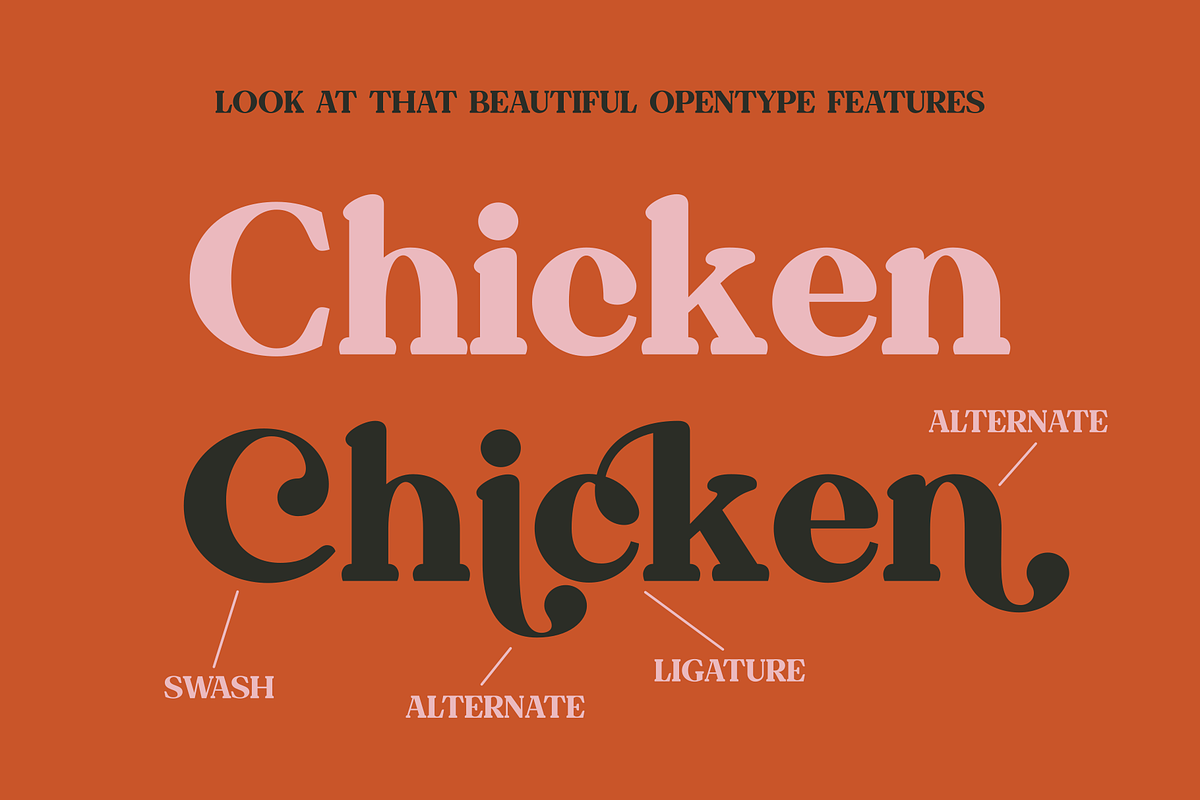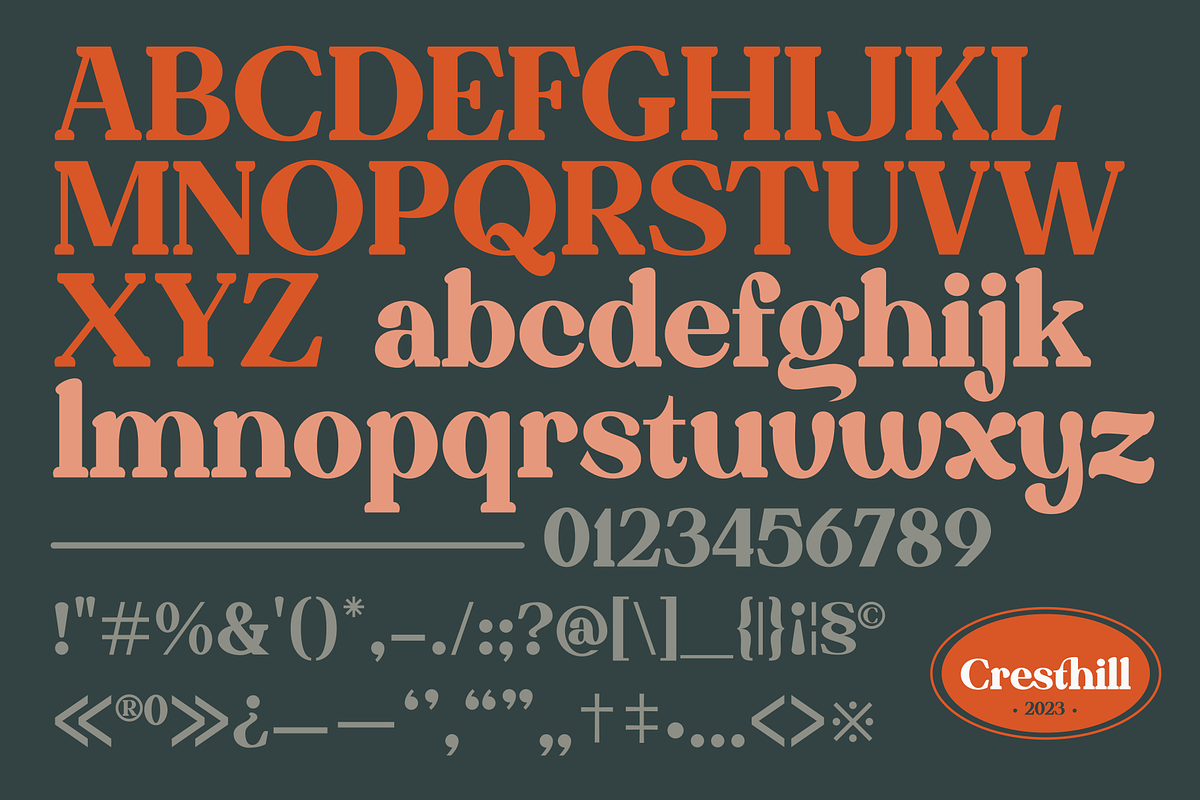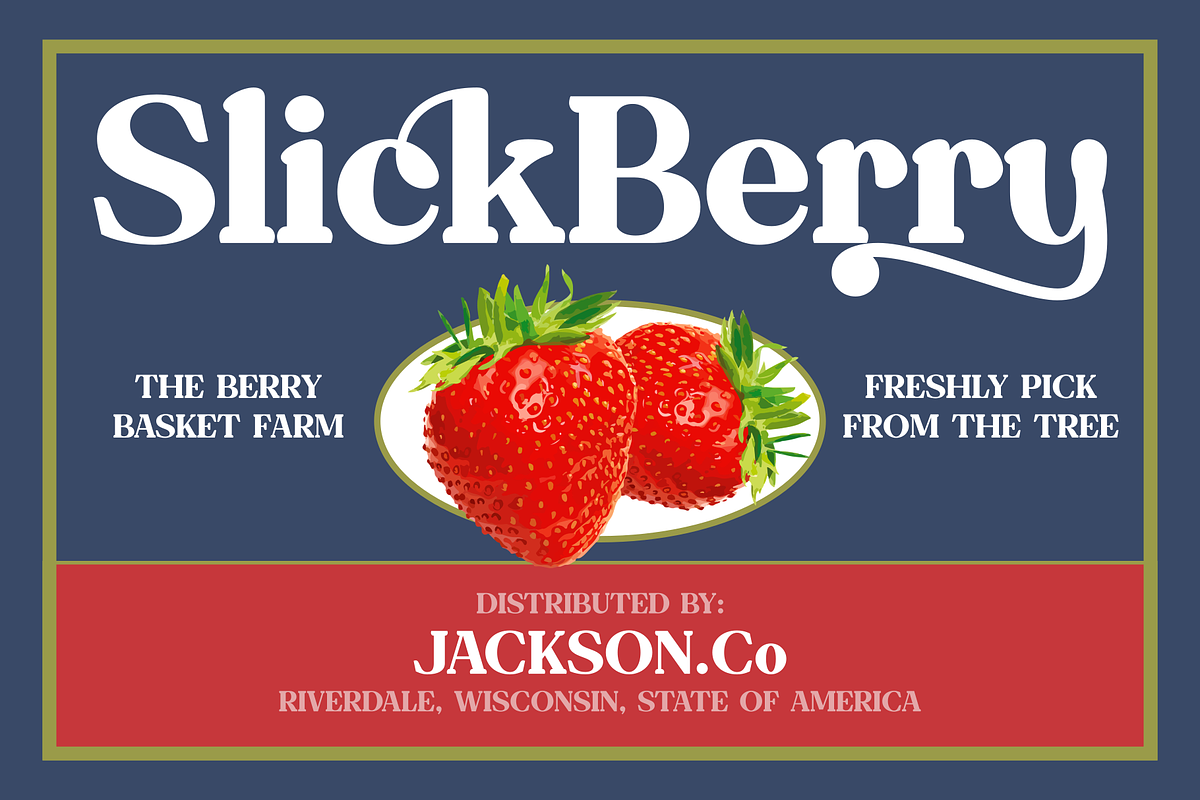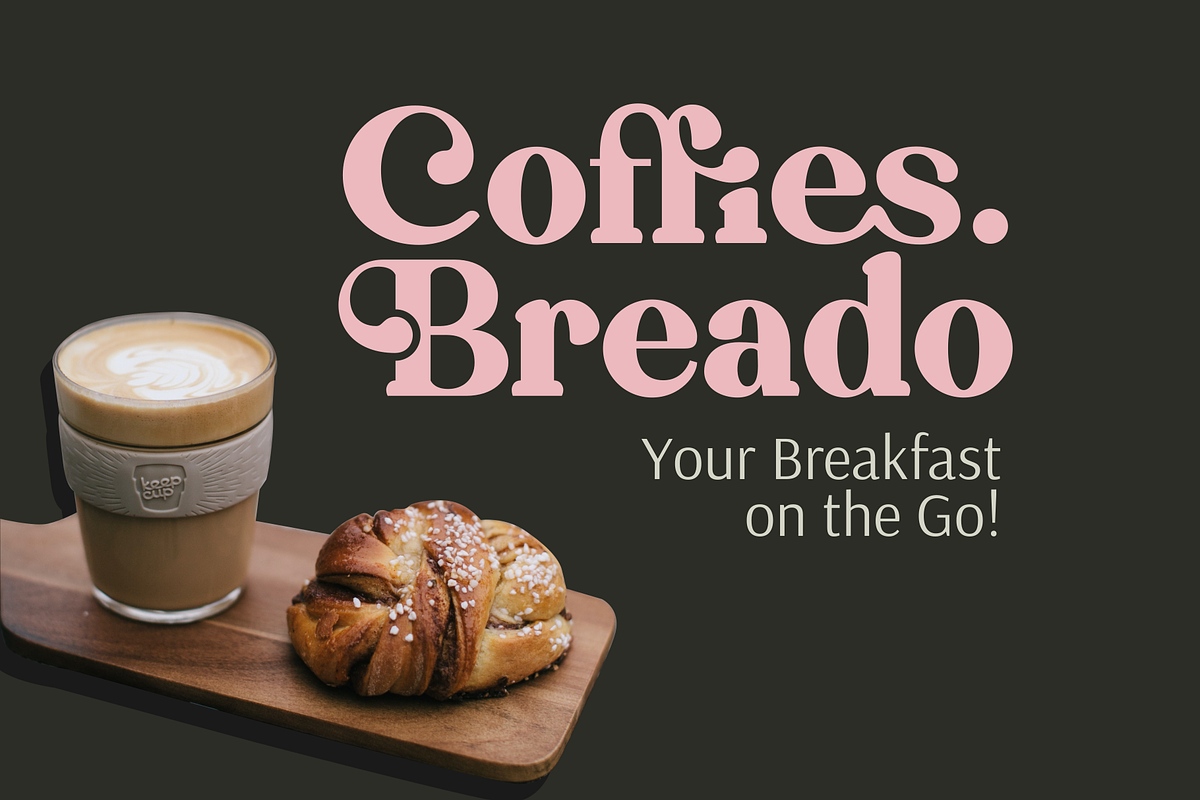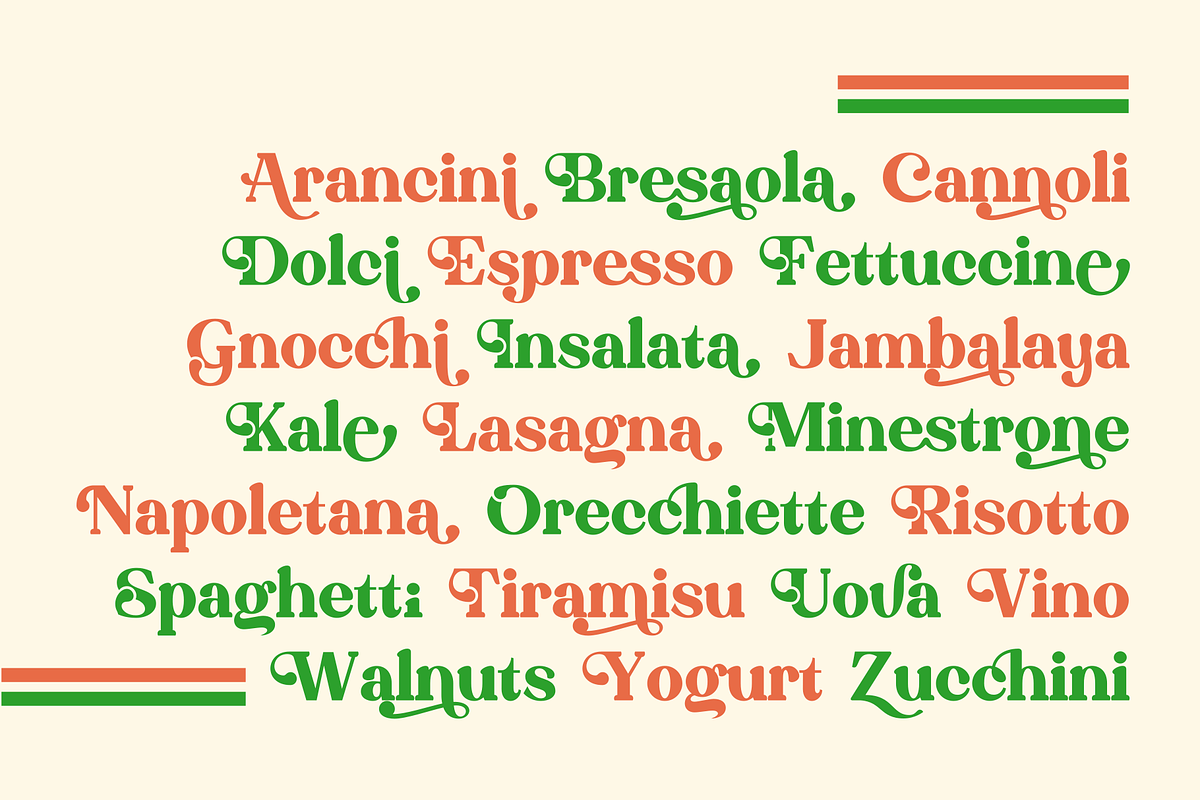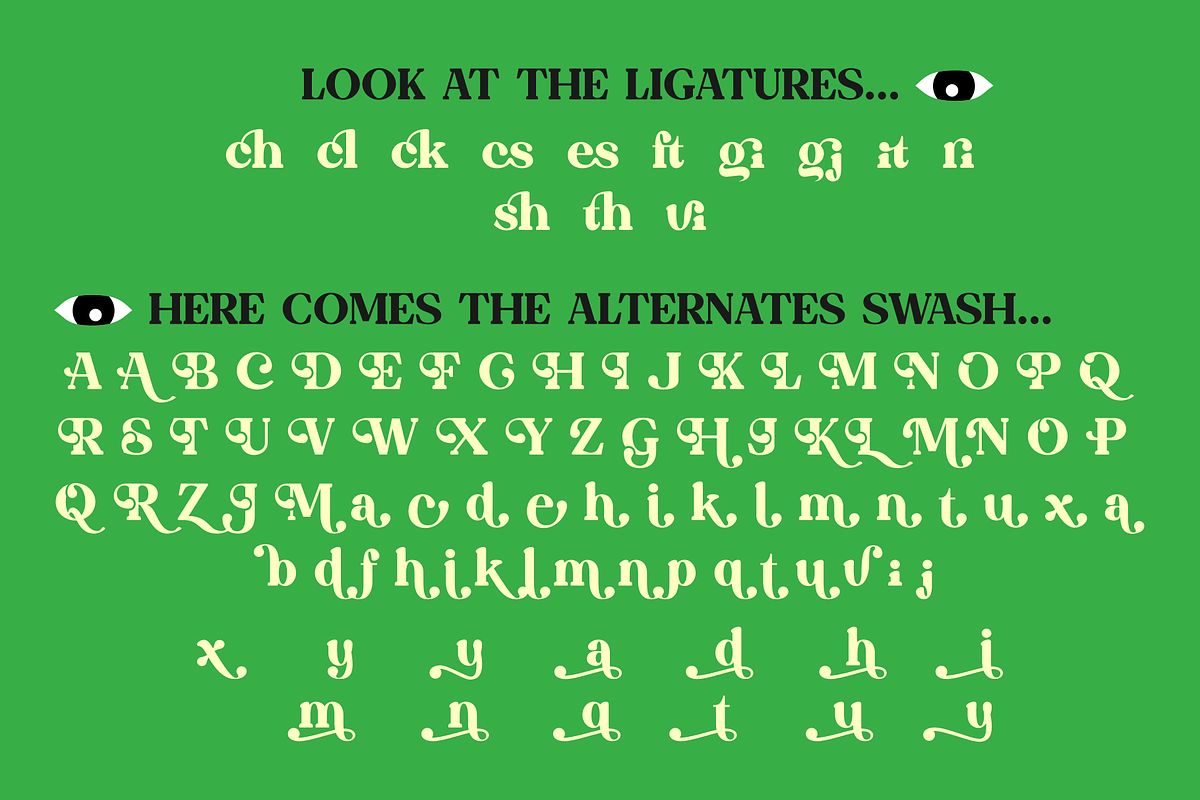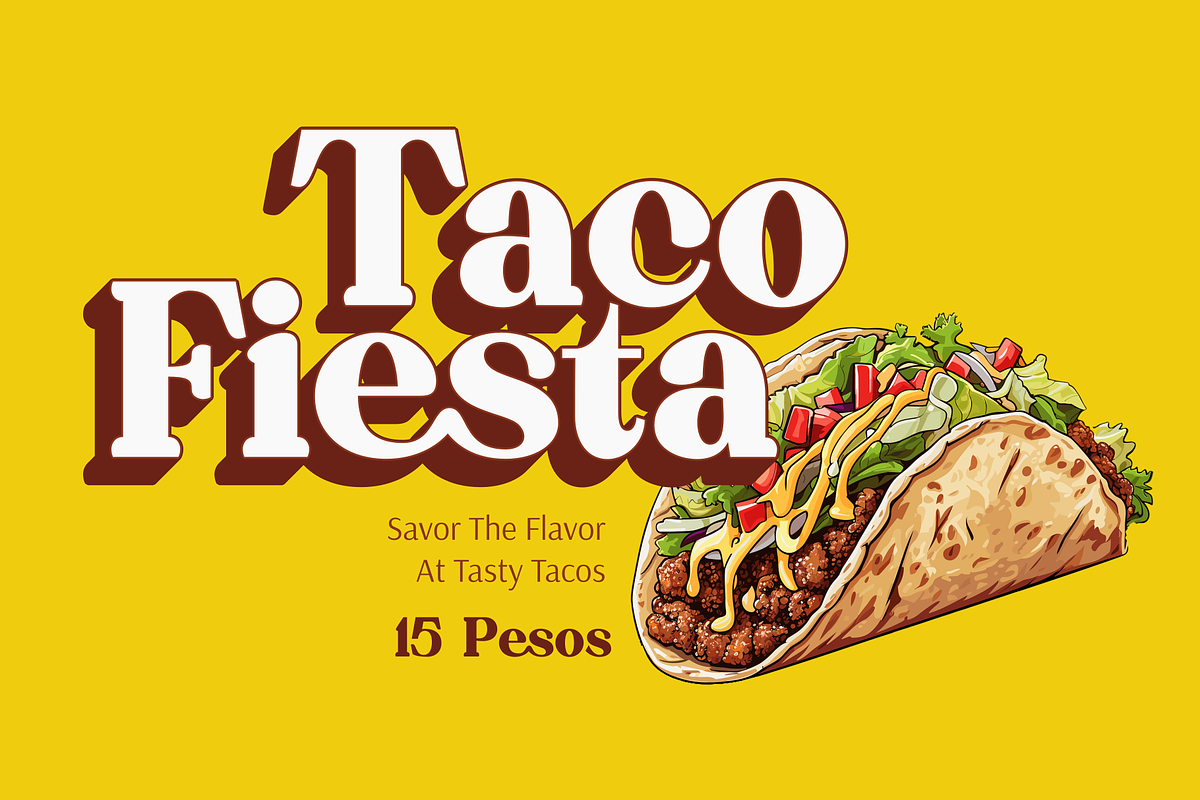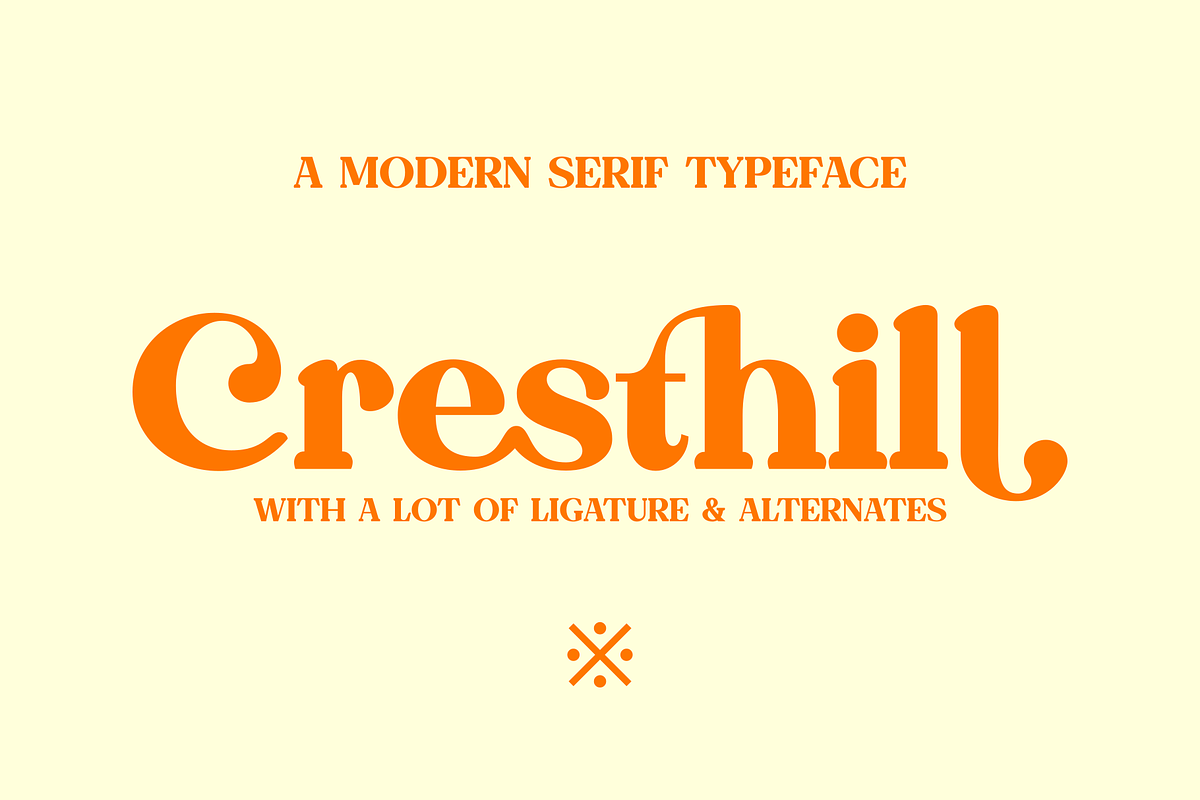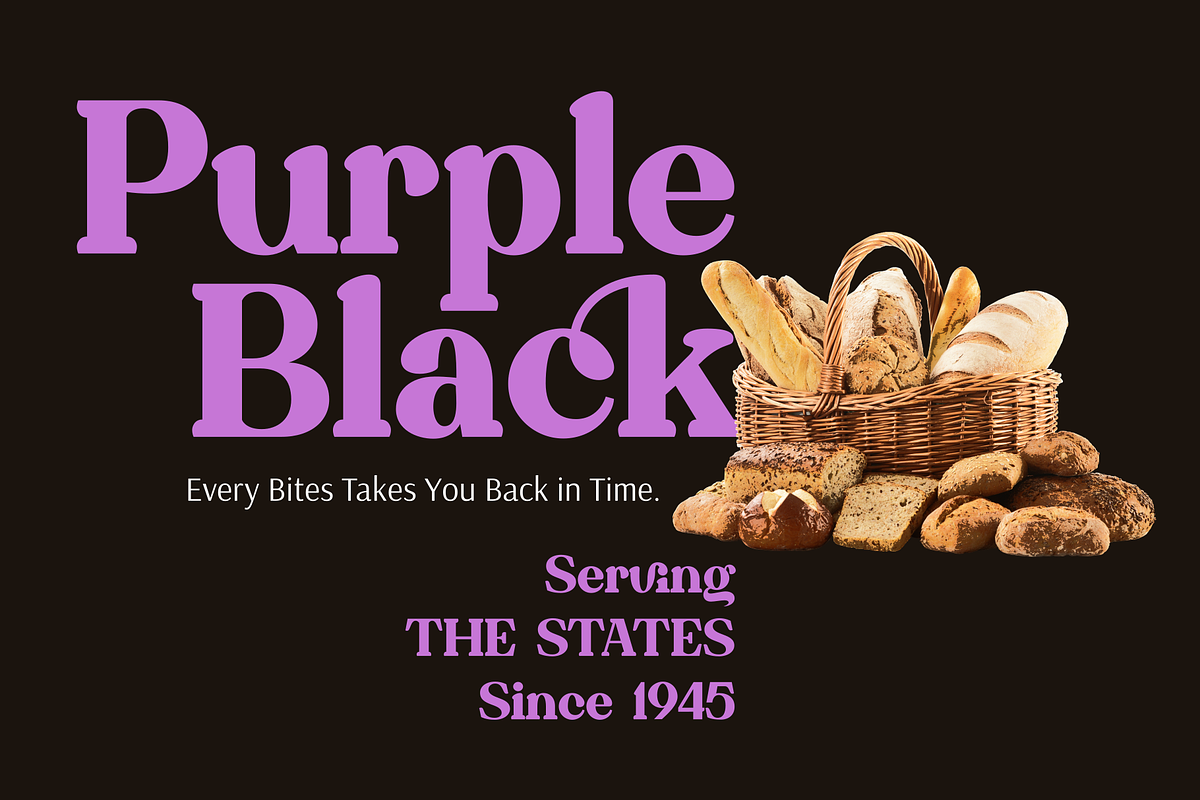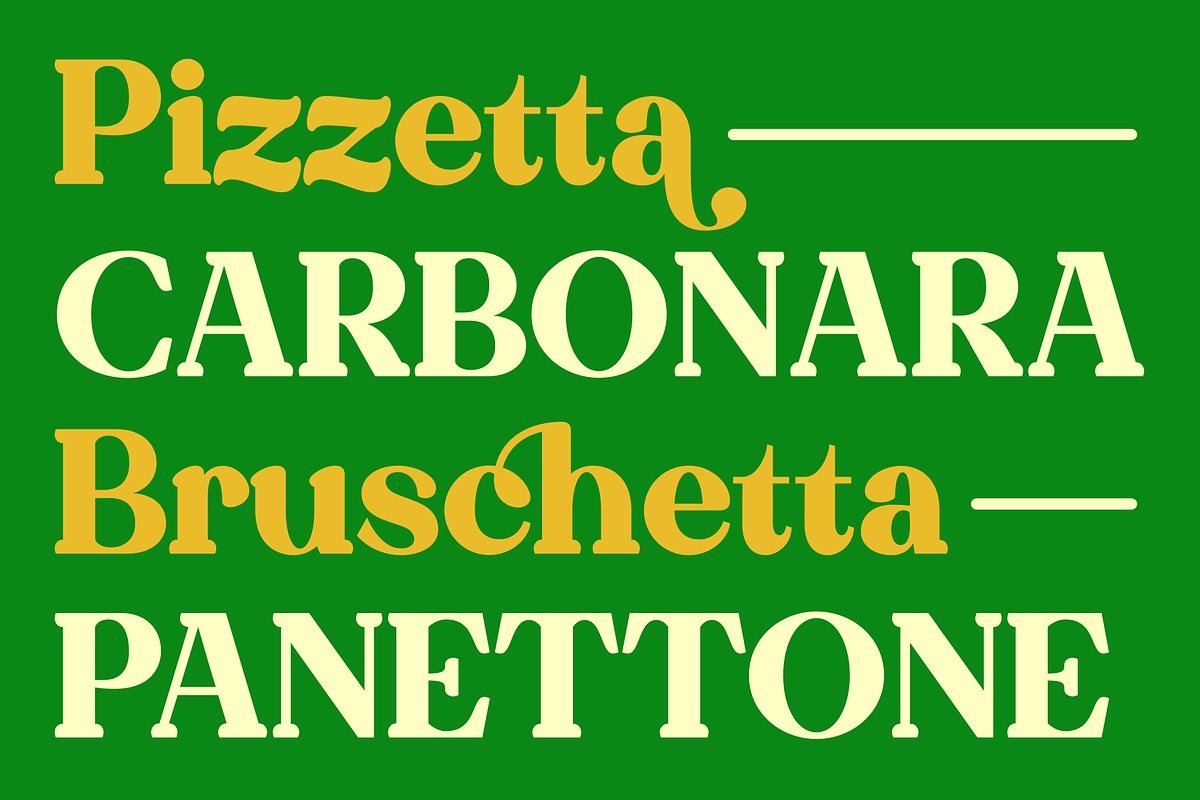
Cresthill - Modern Retro Serif
Introducing Cressthill: A Delightfully Bold and Soft Serif Font with a Retro Twist!
Cressthill is your gateway to timeless elegance and nostalgia, all wrapped up in a single typeface. With its bold yet gentle curves, this font effortlessly combines strength and sophistication, making it perfect for a wide range of design projects.